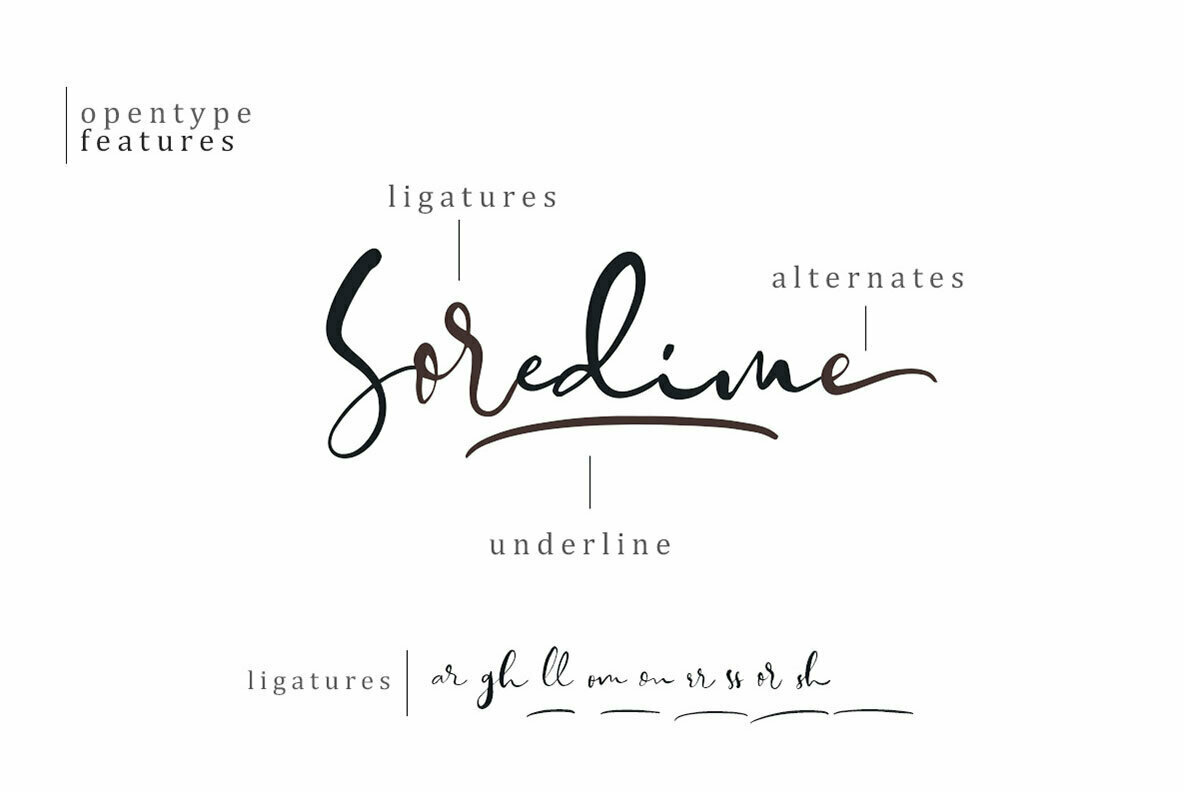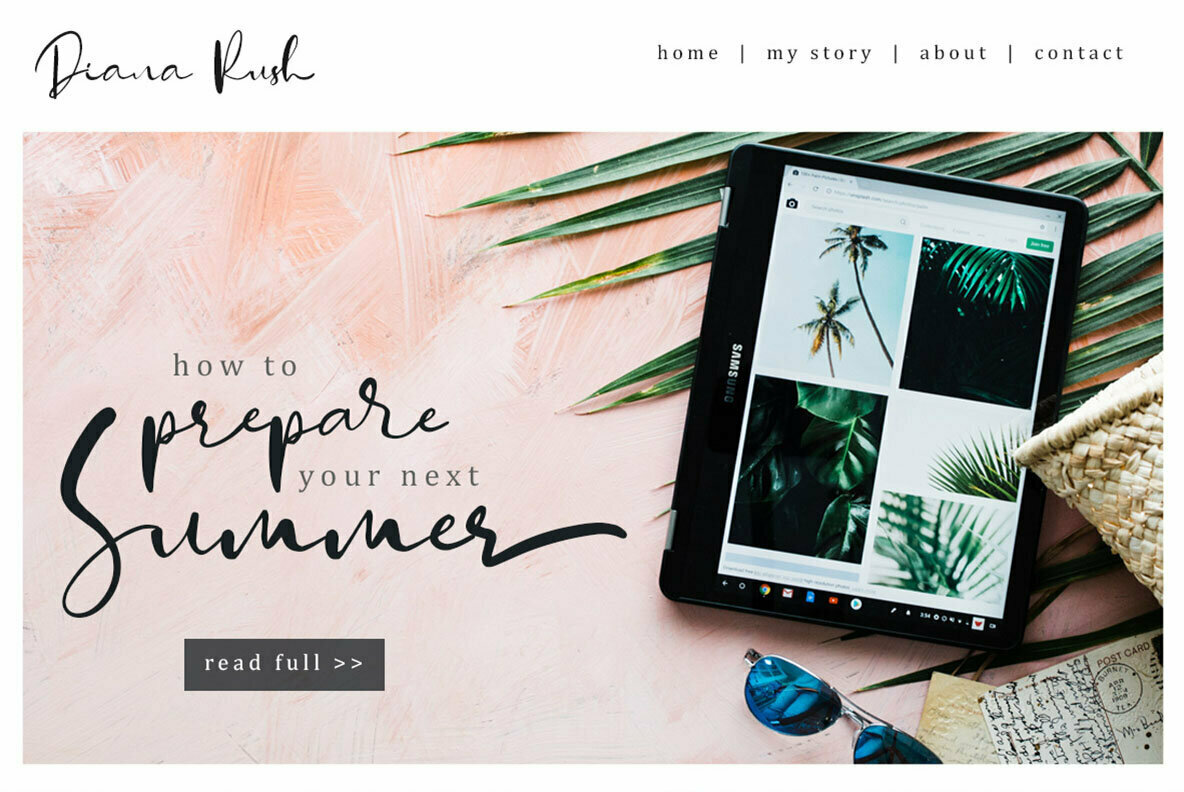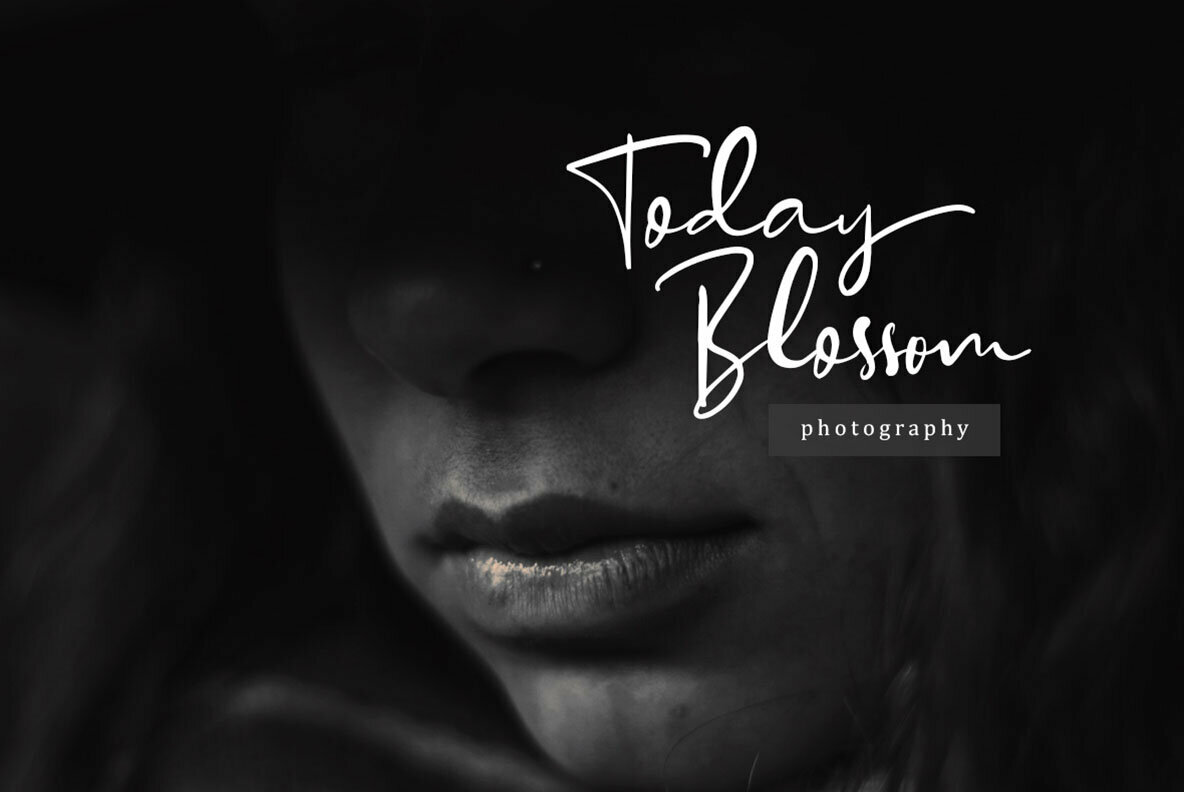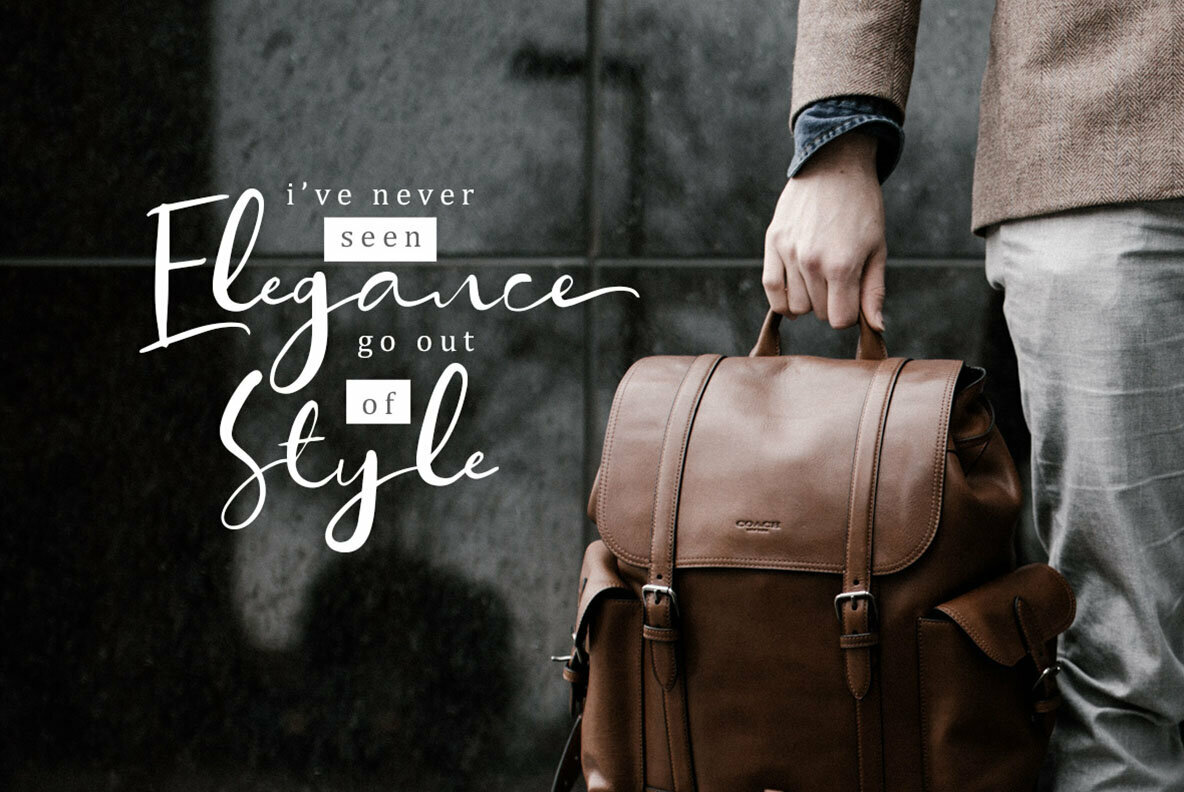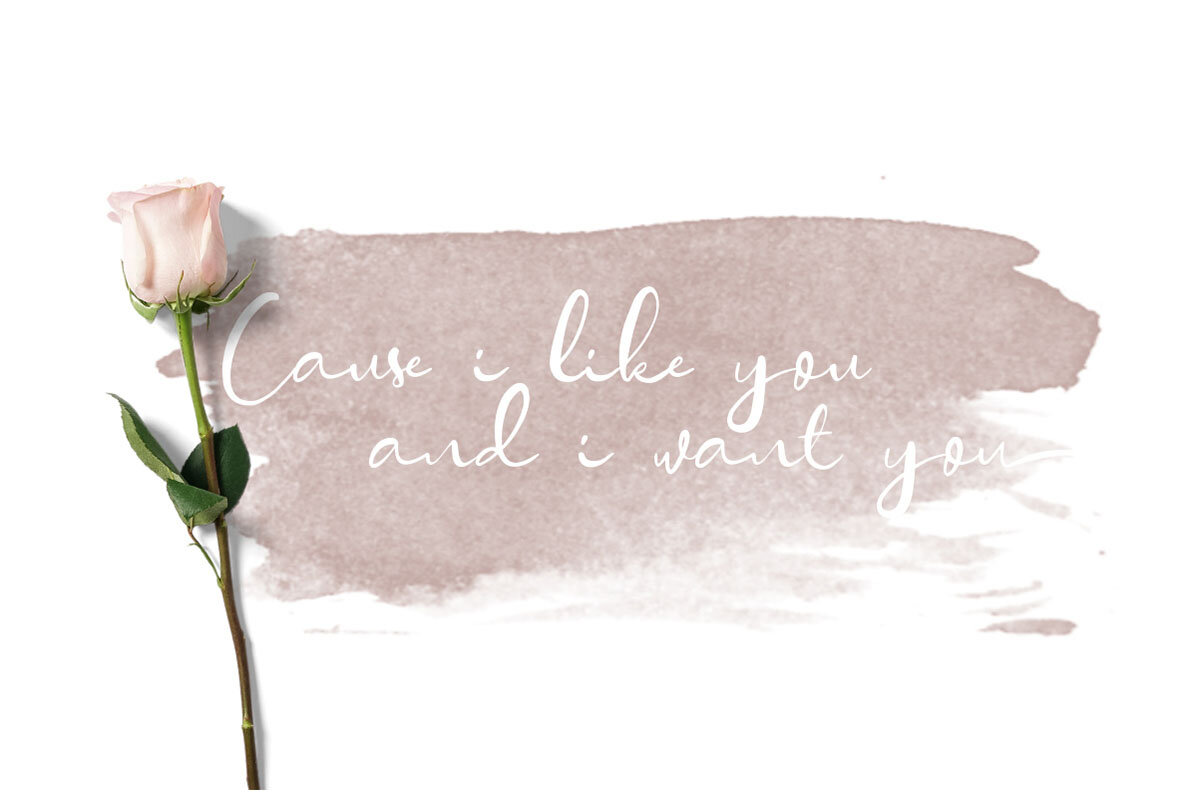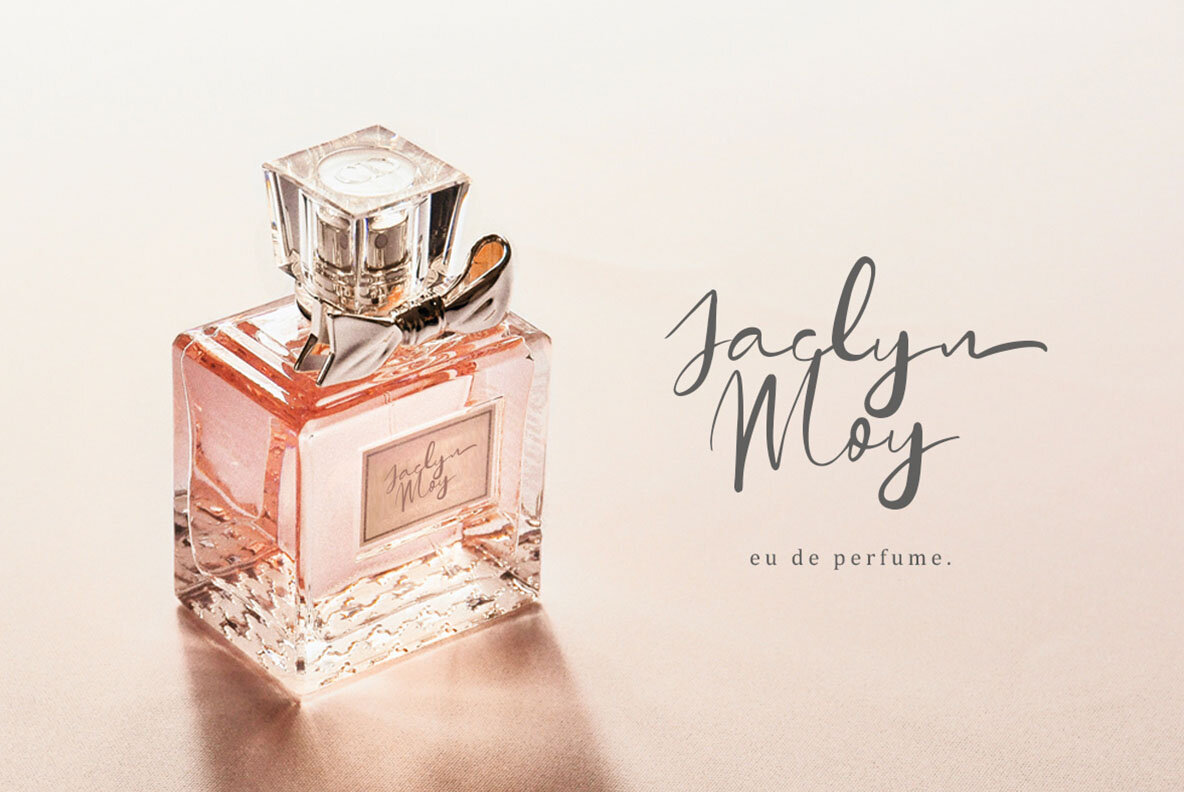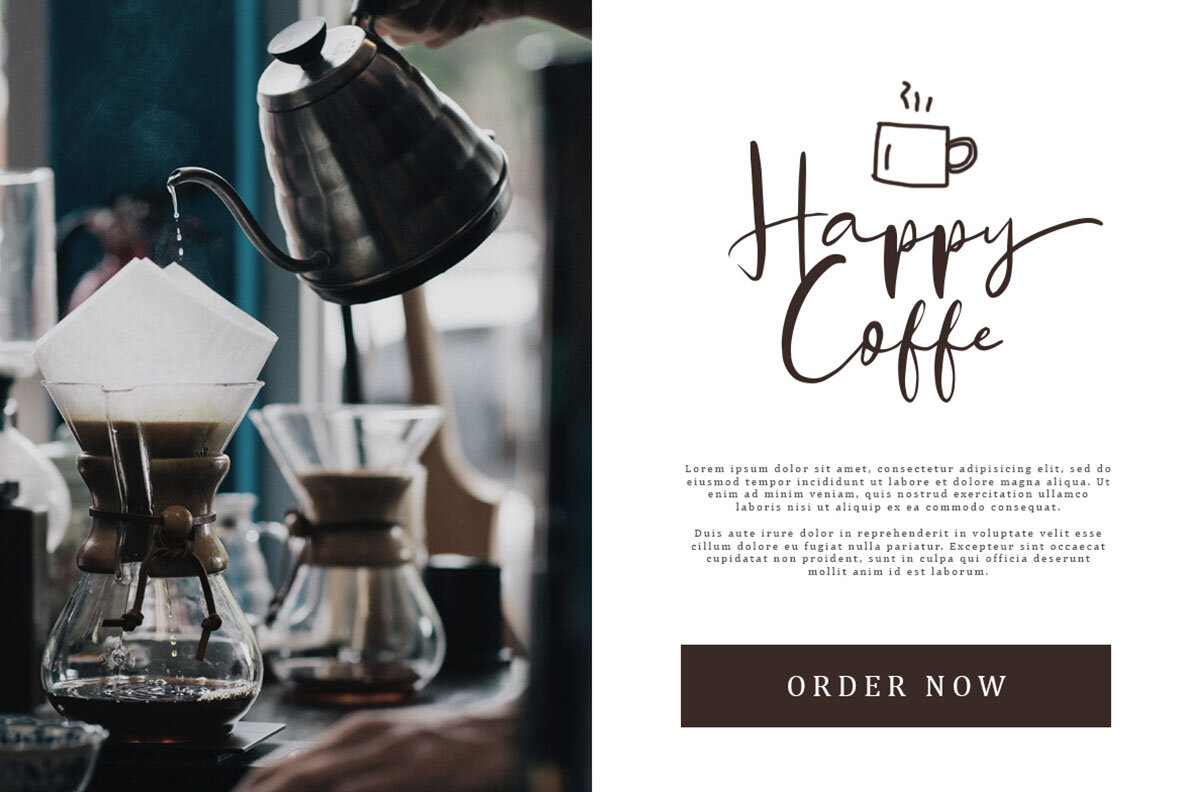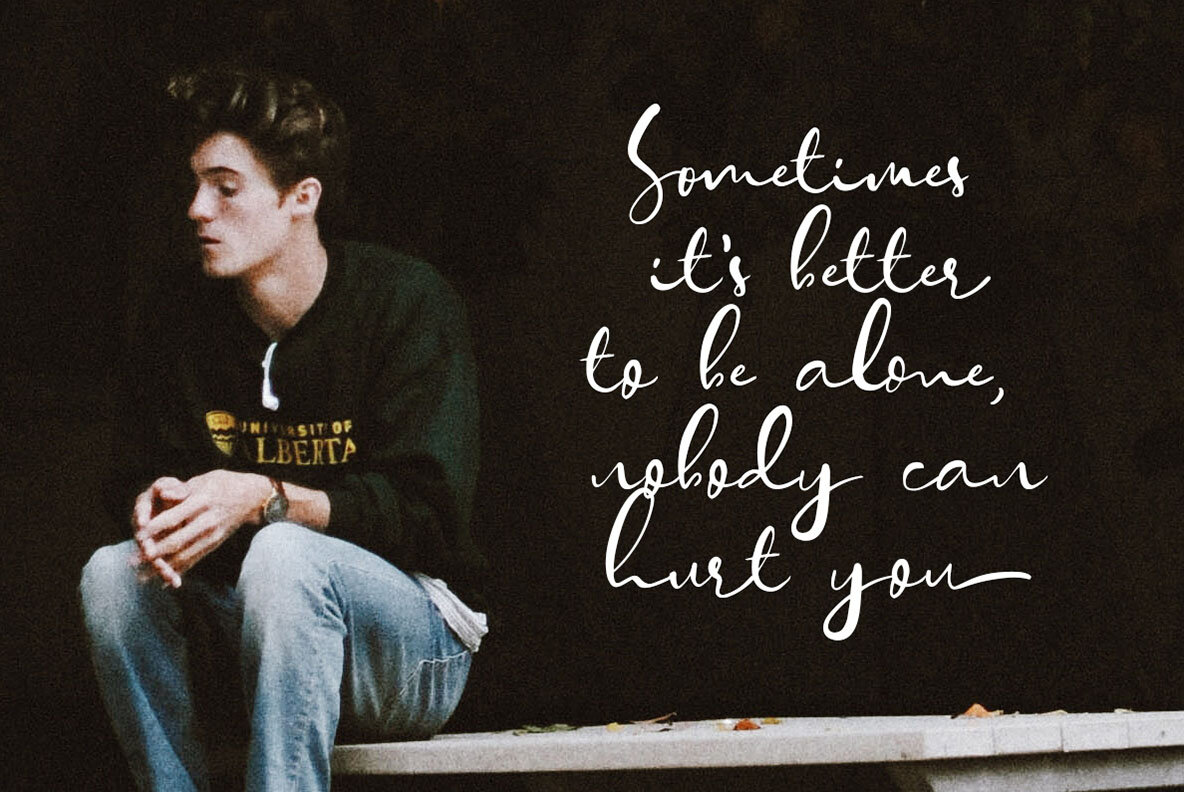
Soredime Script
Soredime Script by Sarid Ezra presents a refined typographic solution for discerning designers. With its fluid strokes and graceful curves, this signature font is crafted to enhance logos, captivating fashion designs, and artistic wedding invitations. Rich alternatives and ligatures enrich its possibilities.Soredime Script: The Epitome of Elegance in Typography